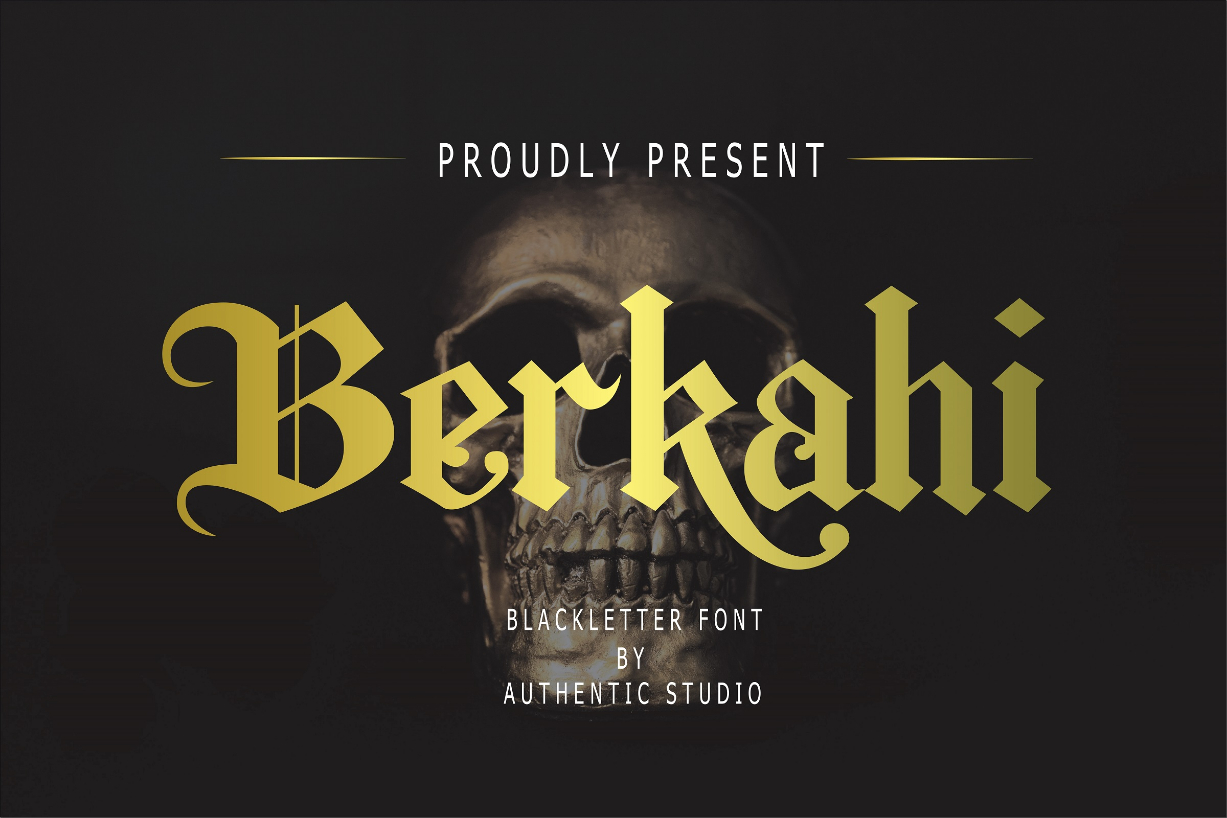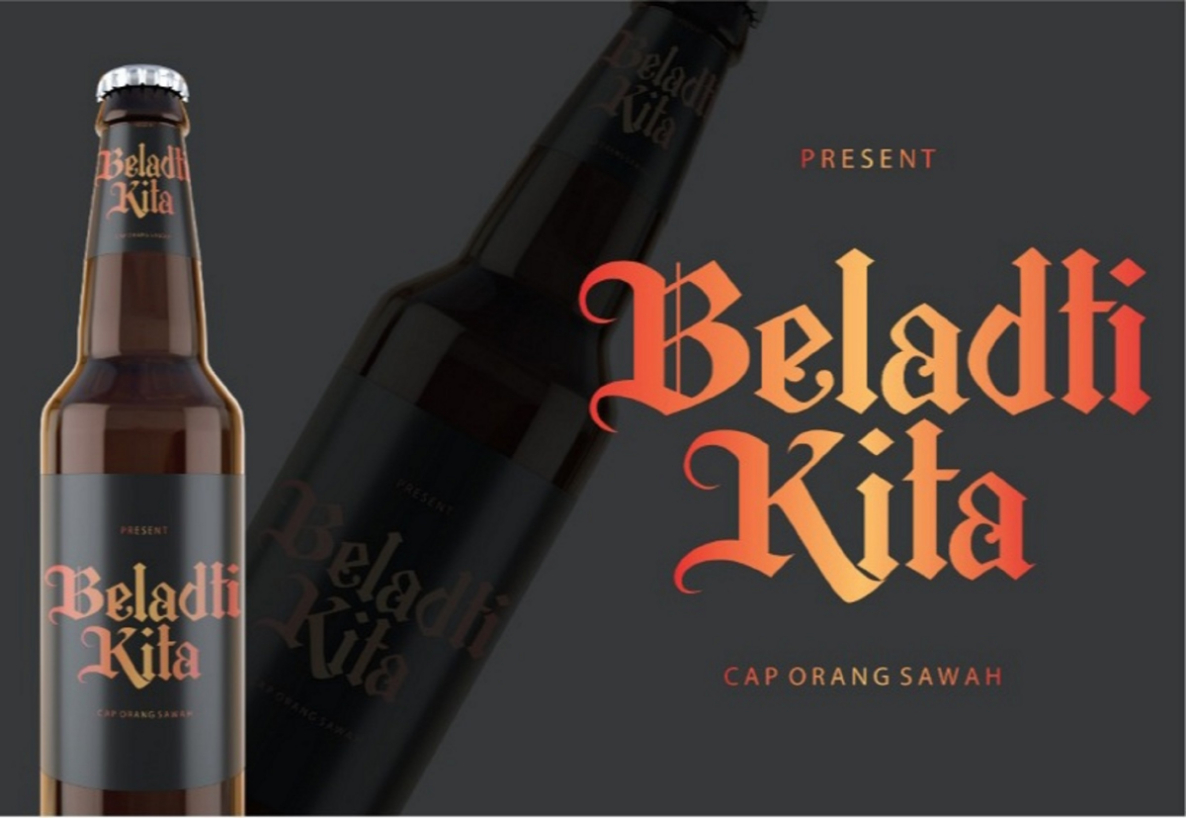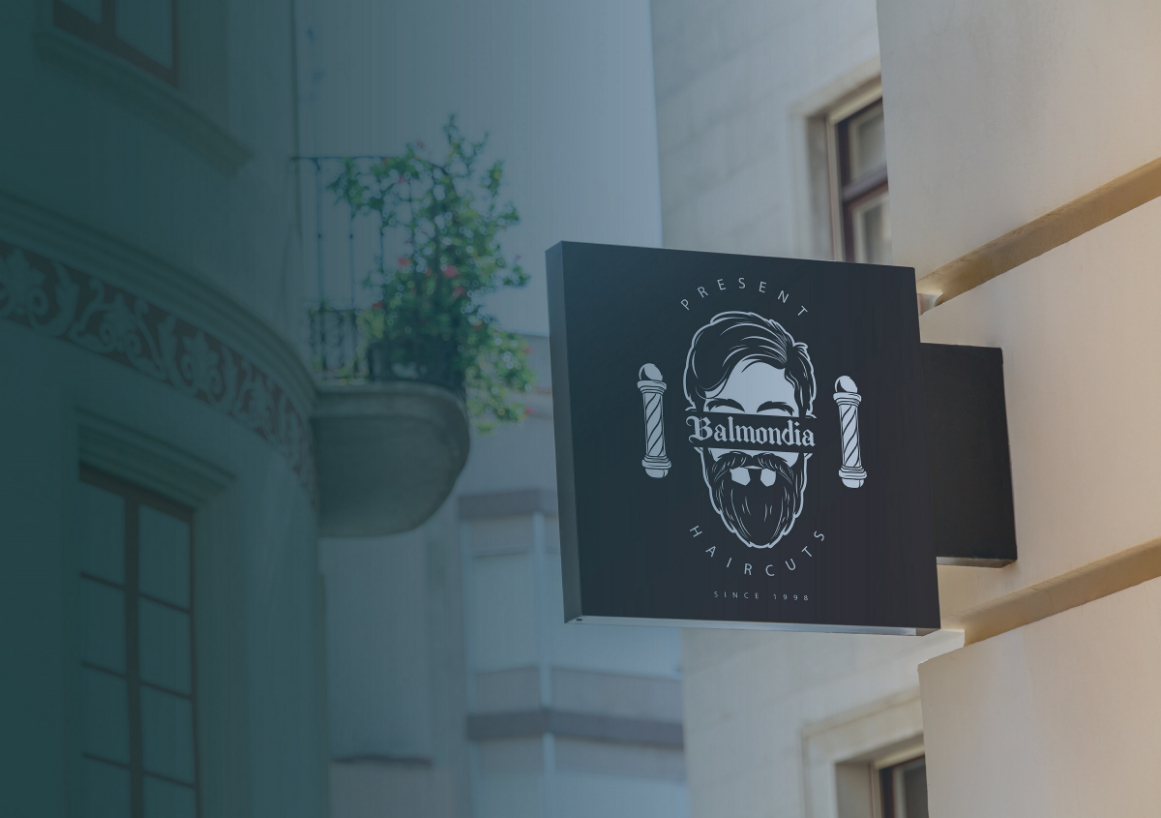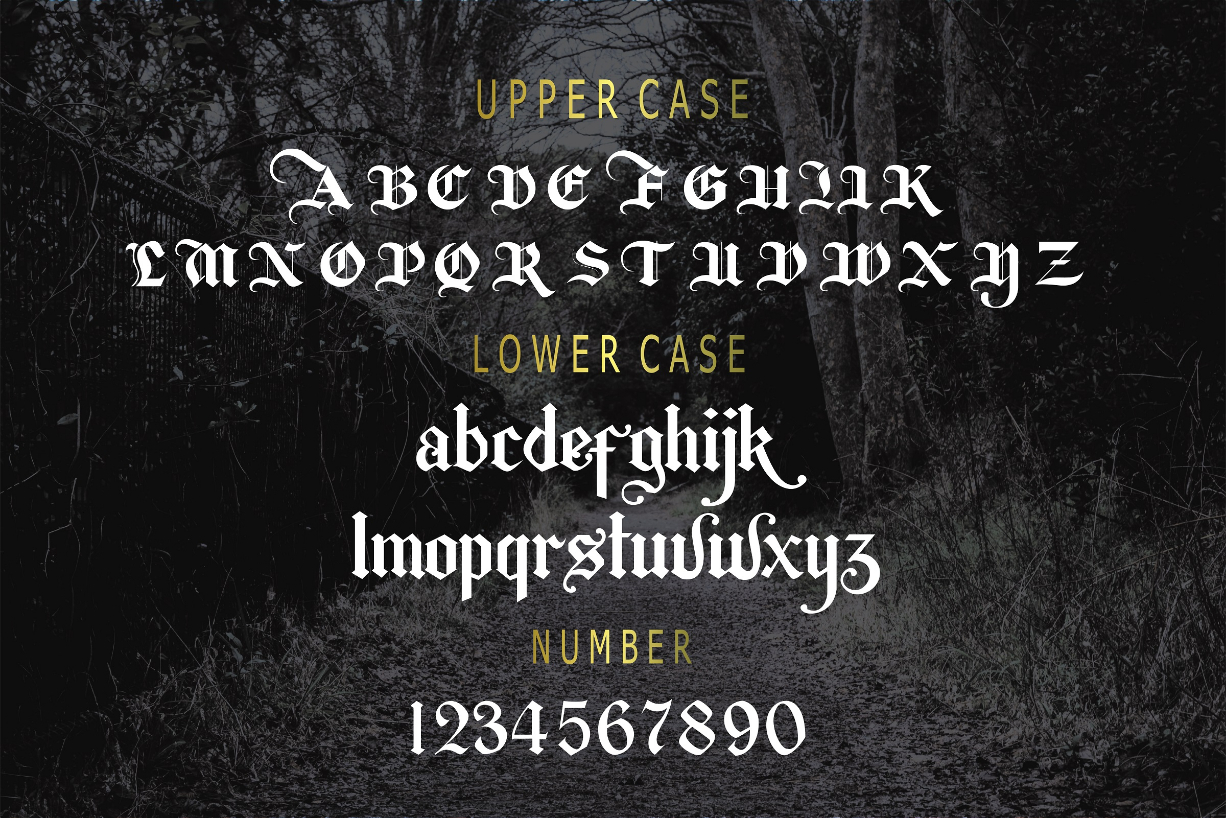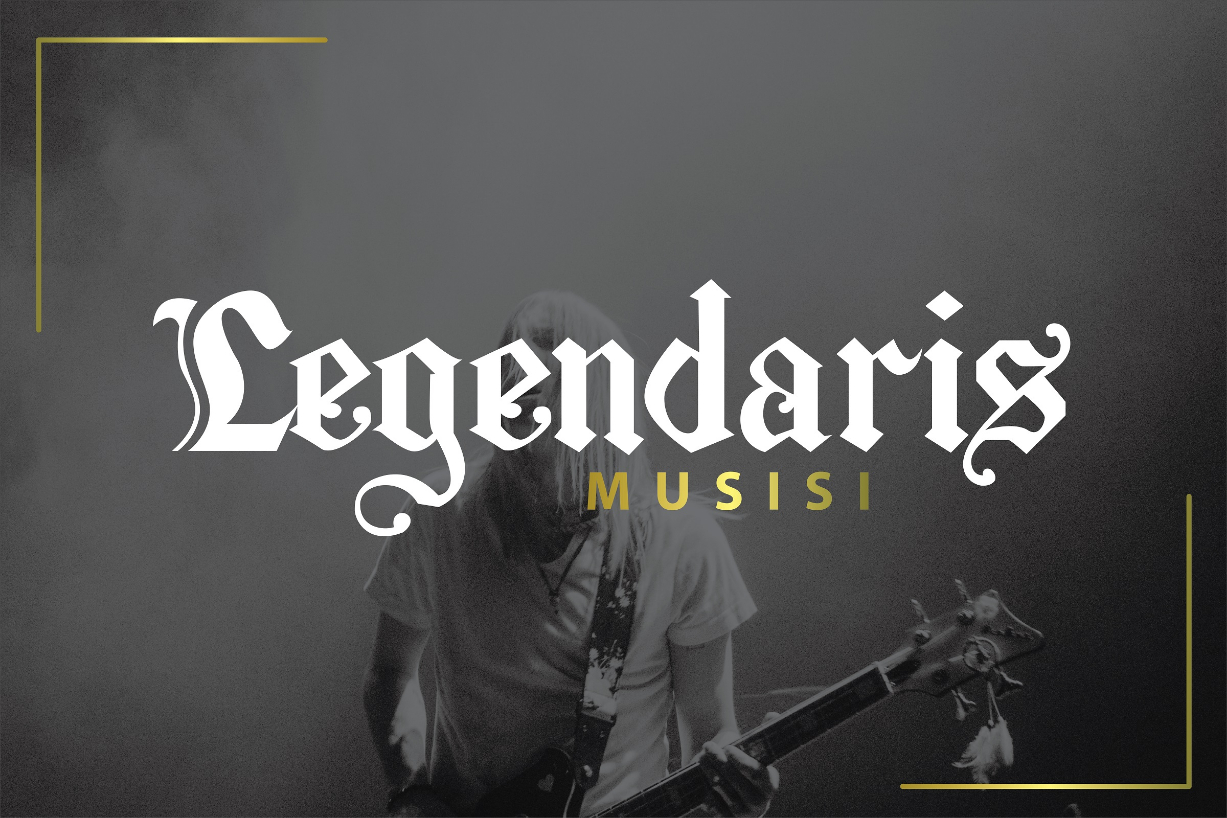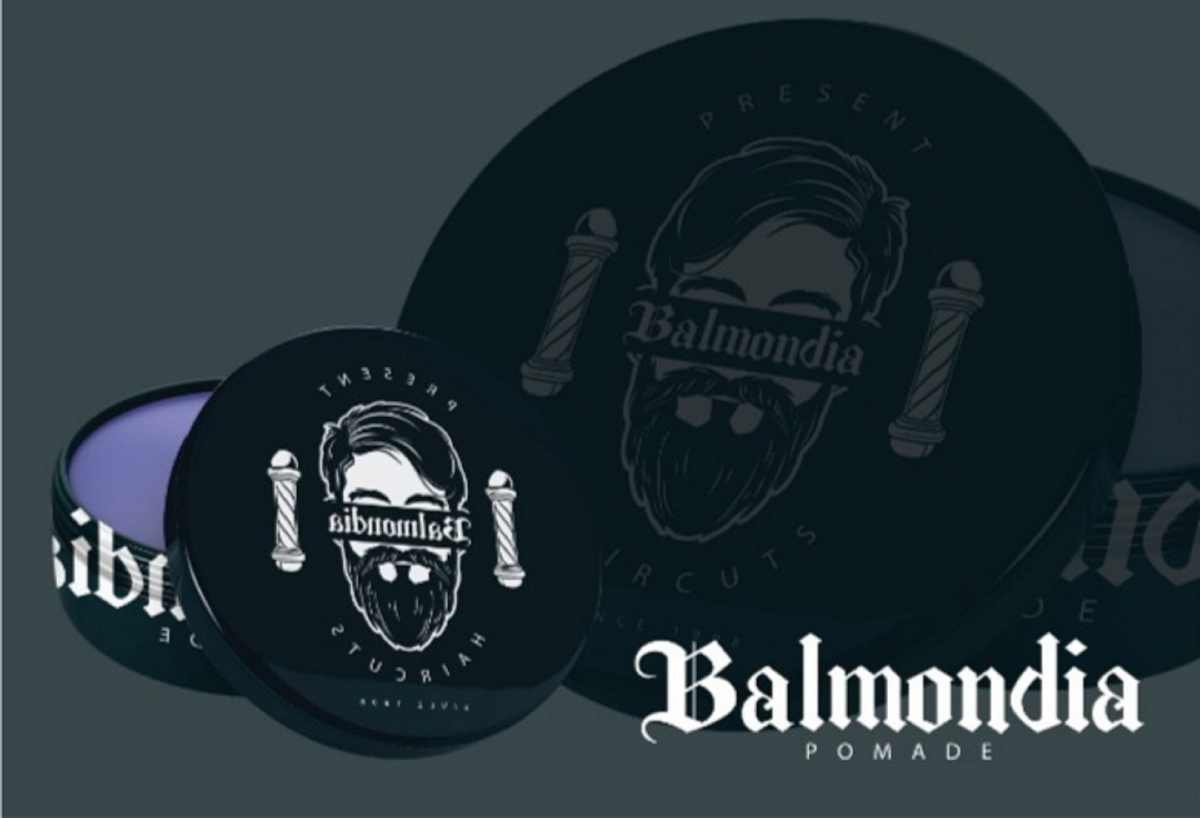
Berkahi Font
About Berkahi Font
Berkahi is a unique gothic blackletter, perfect for tattoos, clothing, labels, packaging, branding, or any Gothic-themed projects!